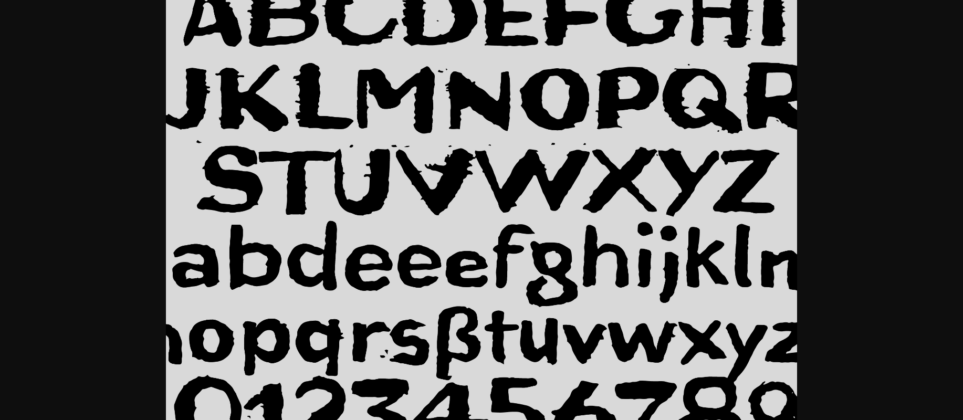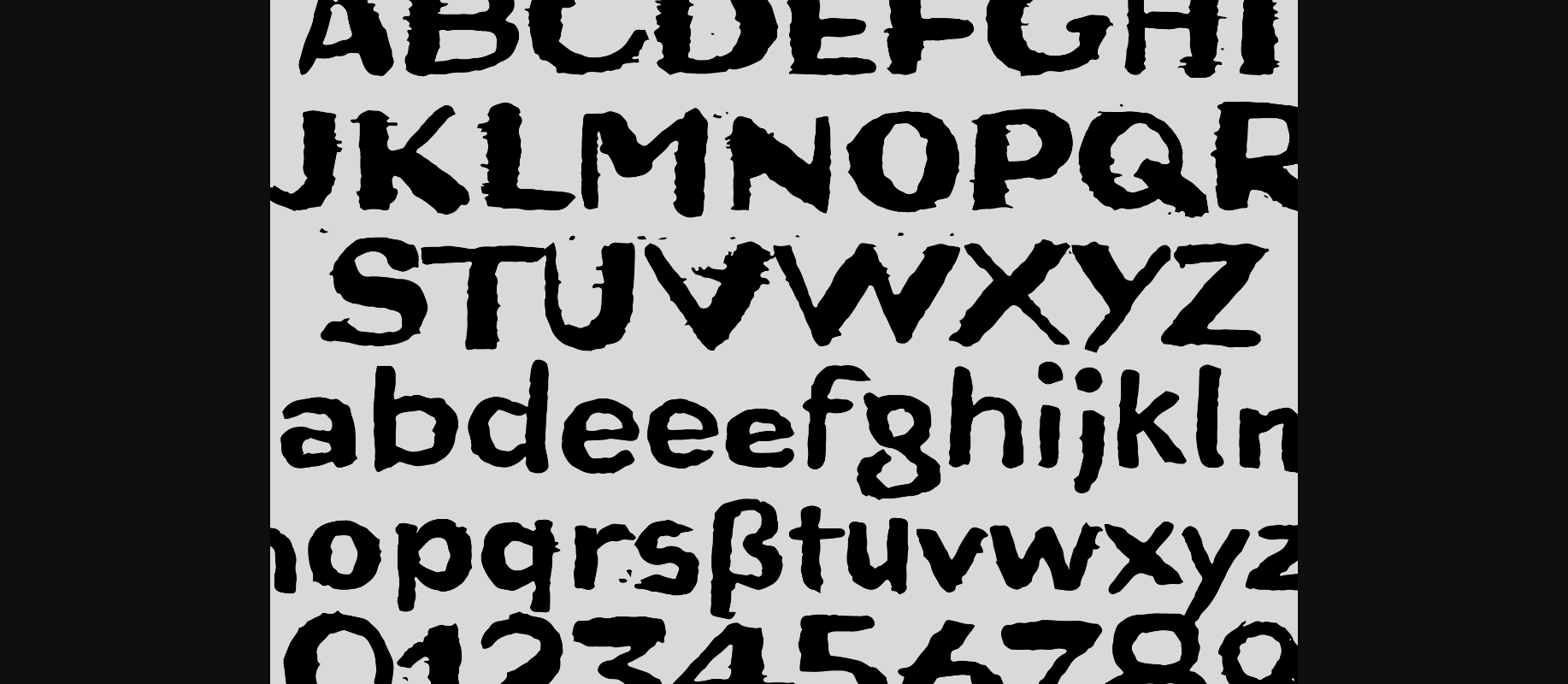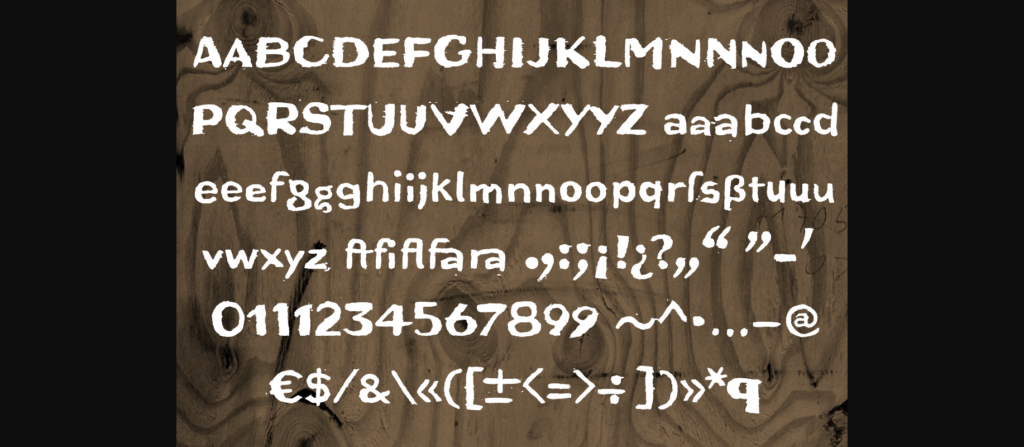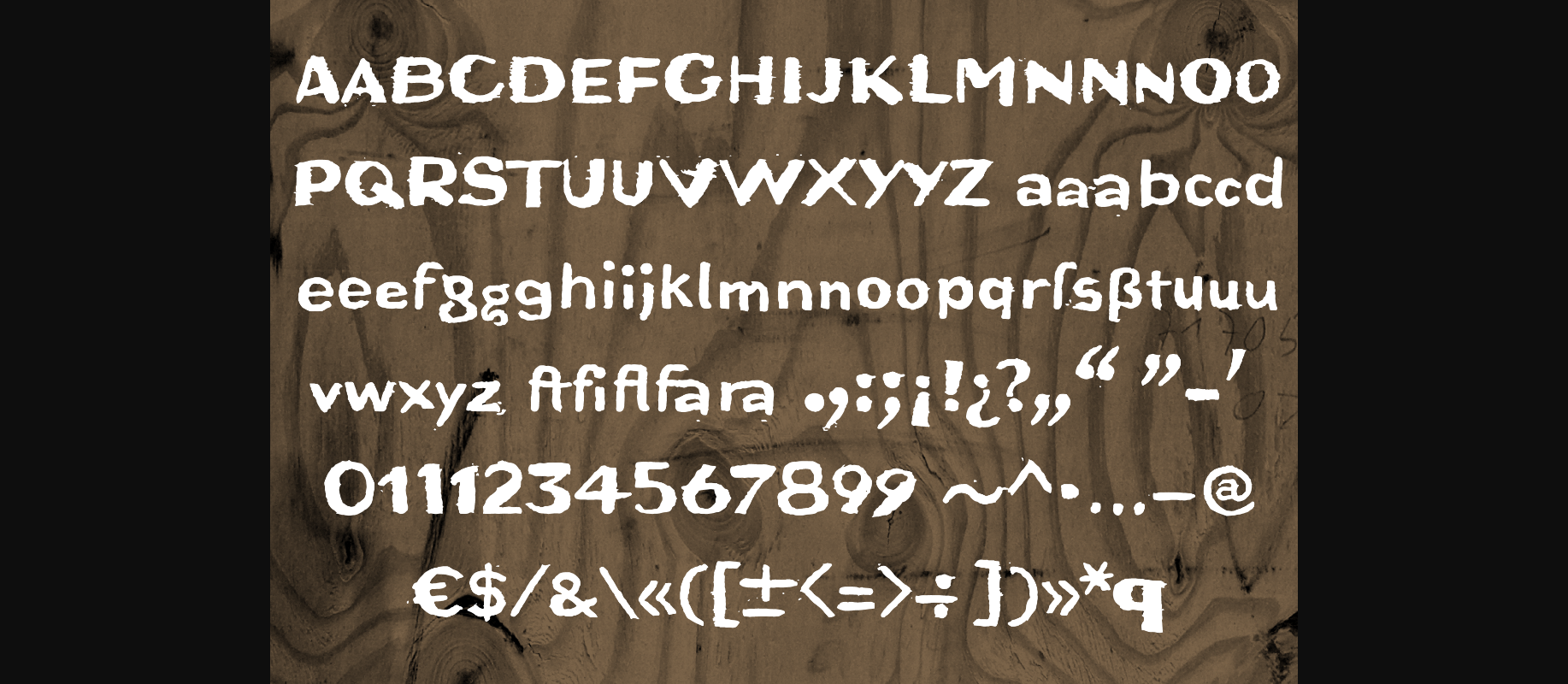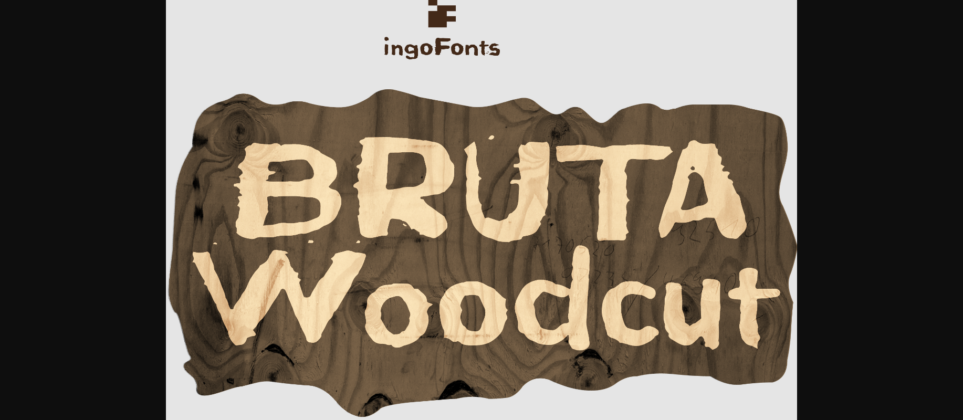
About Bruta Woodcut Font
Bruta Woodcut is a fun and bold decorative font with an organic feel! Get inspired by its lovely charm, and turn any design project into a stand out.